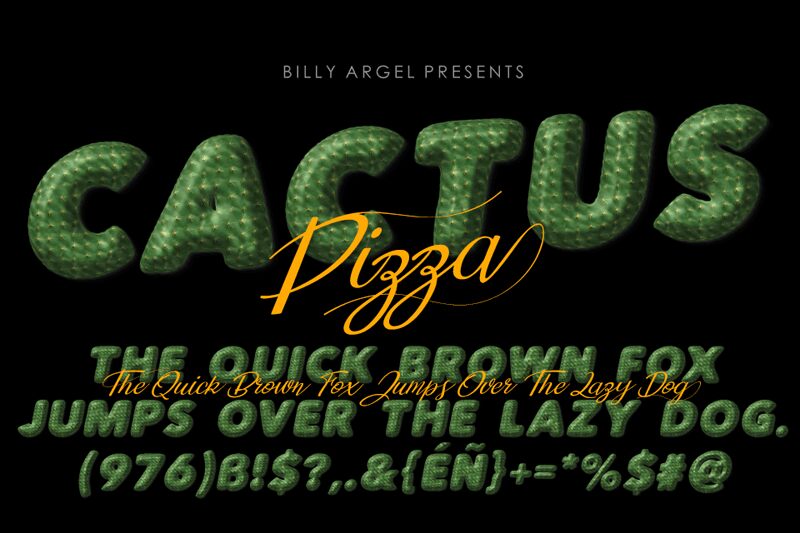
Cactus Pizza Bold is a captivating display font designed by Billy Argel Fonts. This bold, cartoon-inspired typeface exudes a playful and energetic vibe, making it a standout choice for a variety of creative projects. The strong, angular letterforms and distinctive detailing, such as the cactus-inspired elements, imbue the font with a unique character that immediately grabs the viewer's attention.
Cactus Pizza Bold's versatility shines through its ability to seamlessly integrate into diverse design contexts. Its bold presence and whimsical aesthetic make it an excellent selection for attention-grabbing headlines, logo designs, packaging, and branding applications that aim to convey a fun, lighthearted tone. Additionally, this font's dynamic nature lends itself well to digital interfaces, social media graphics, and other modern design mediums where a vibrant, eye-catching typeface is desired.
The pack includes three fonts: bold, bold italic, and script PUA encoded (swash, stylistic alternates, and ligatures).